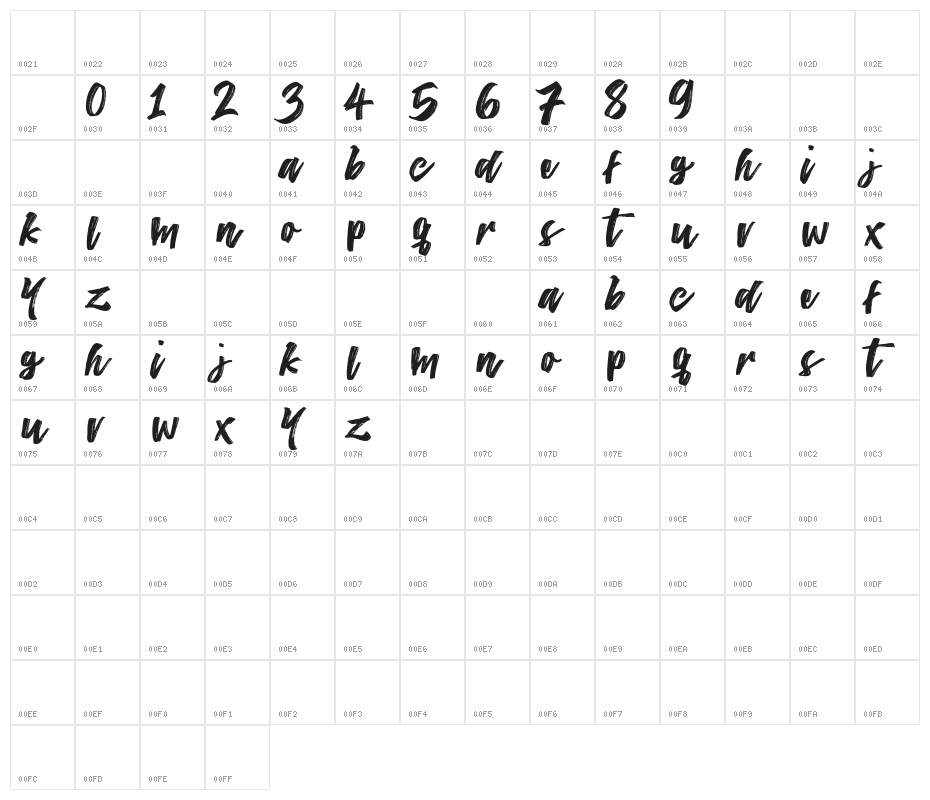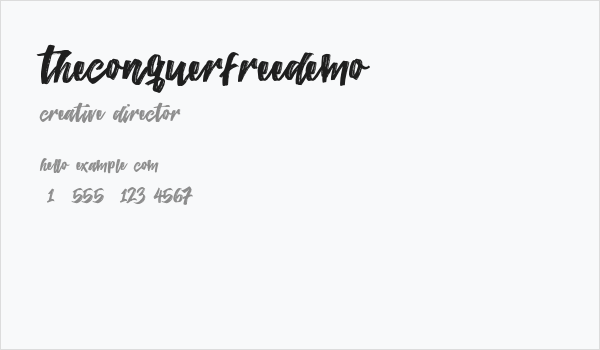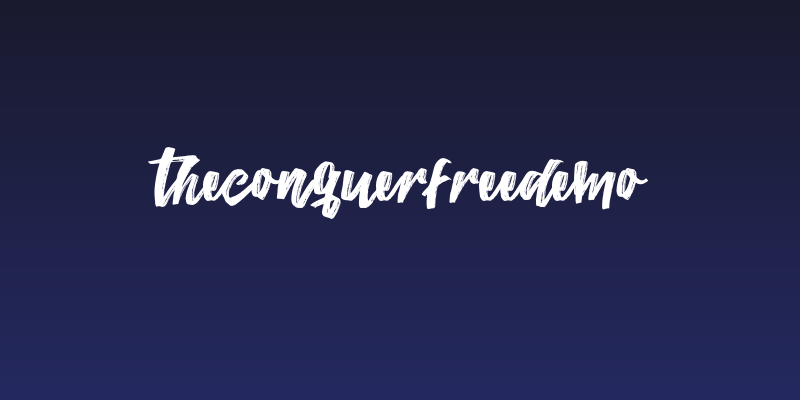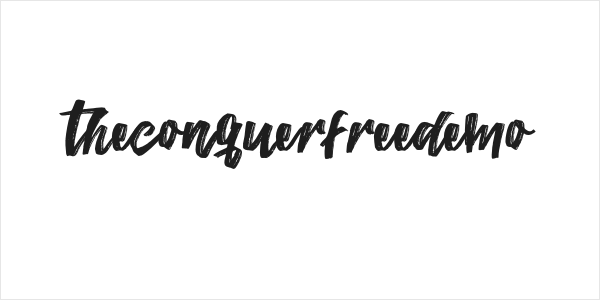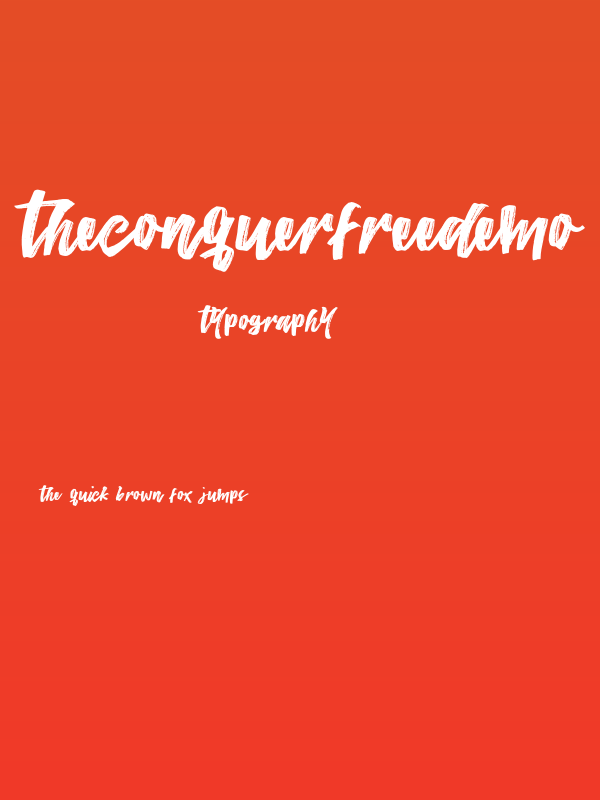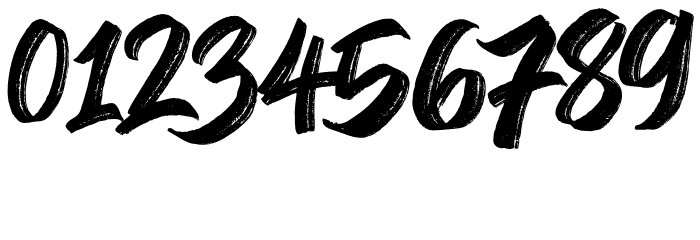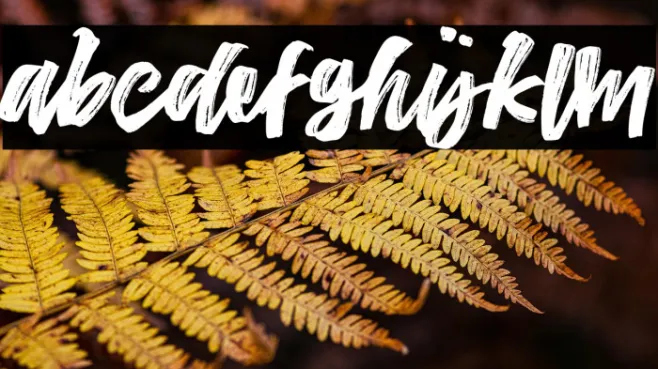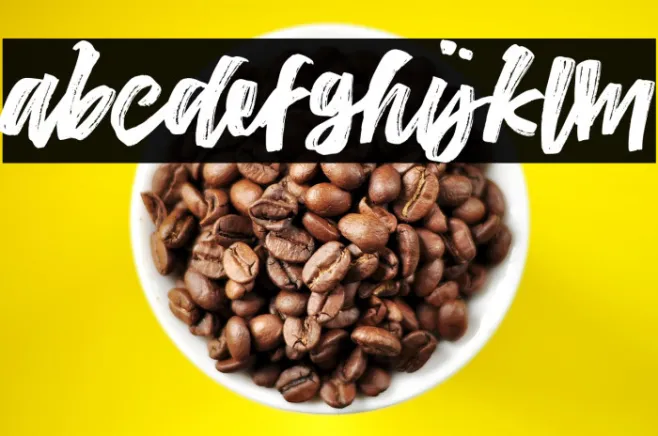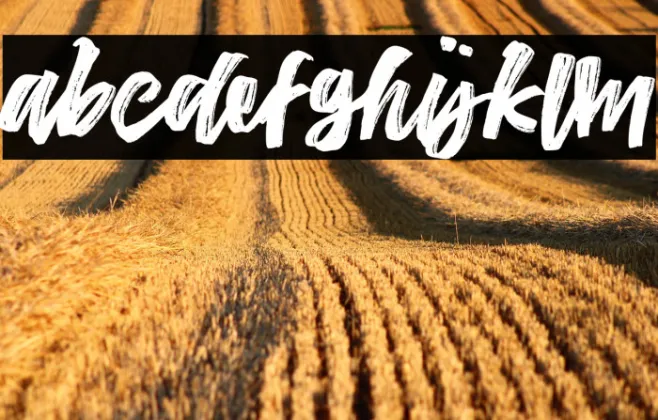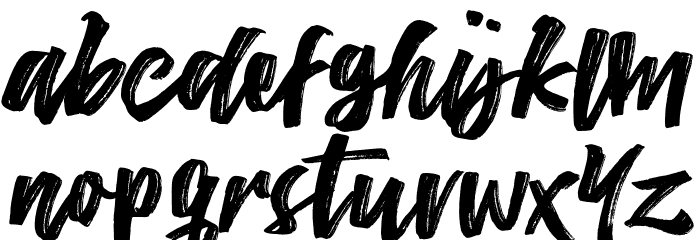
TheConquerFreeDemo Font
TheConquerFreeDemo Description
This font features a bold and expressive handwritten style, characterized by its dynamic brush strokes and textured appearance. The letters are crafted with a sense of motion and energy, giving it a lively and artistic feel. The uppercase and lowercase letters maintain a consistent style, with some letters featuring unique flourishes and curves that add to its charm. The numbers are equally bold and maintain the same textured look, making them stand out. This font is perfect for projects that require a personal touch or a creative flair.
| Proposed Projects | Ideal for branding, posters, invitations, and social media graphics that require a personal and artistic touch. |